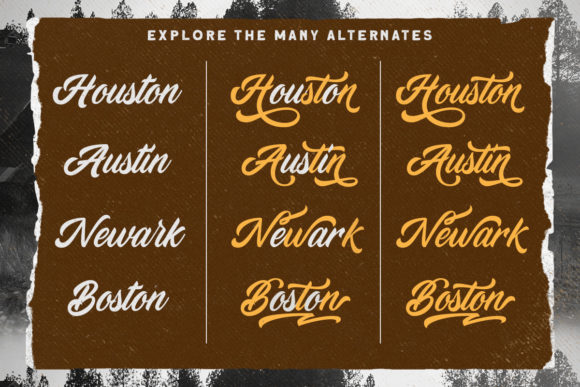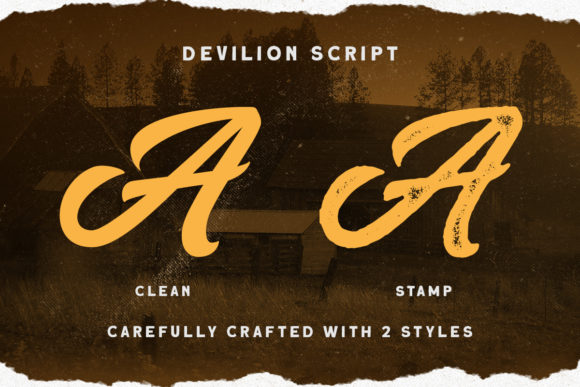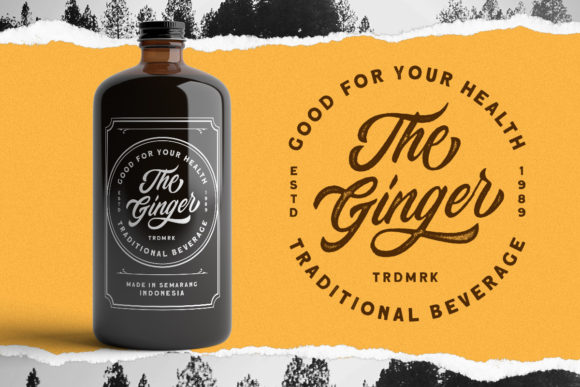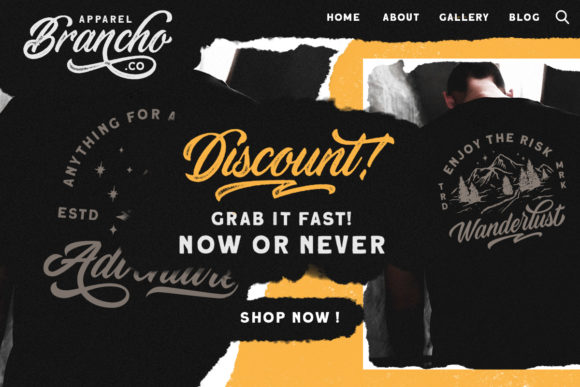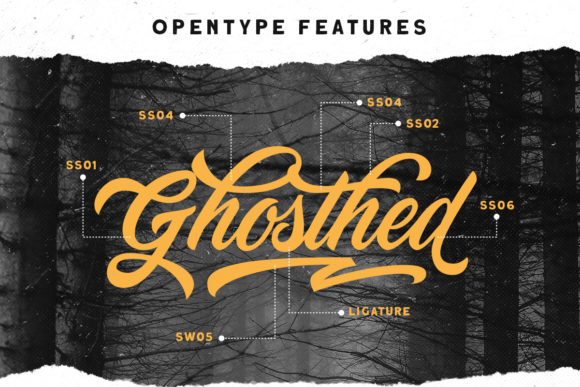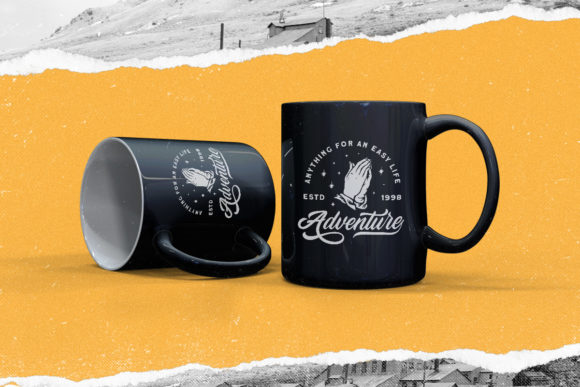
Introducing Devilion Font: A Timeless Script with a Bold Vision
Devilion is a classic script font that exudes elegance and sophistication, making it a perfect choice for designers and crafters looking to add a touch of refinement to their projects. With its bold vision and timeless charm, Devilion has become a popular choice among creative professionals. In this article, we’ll delve into the world of Devilion font, exploring its features, uses, and benefits.
The Story Behind Devilion
Devilion font is a carefully crafted script typeface that draws inspiration from traditional calligraphy. Its bold and fluid strokes are reminiscent of classic scripts, while its modern twists make it a versatile choice for a wide range of applications. Whether you’re designing a logo, creating a brand identity, or crafting a beautiful wedding invitation, Devilion is the perfect choice.
Key Features of Devilion Font
- Classic Script Style: Devilion boasts a classic script style with flowing connections and elegant strokes.
- Bold Vision: The font’s bold vision makes it perfect for headlines, titles, and emphasis.
- Versatile: Devilion is suitable for a wide range of applications, from branding and advertising to packaging and stationery.
- Easy to Read: Despite its bold style, Devilion remains easy to read, making it perfect for body text and captions.
Uses of Devilion Font
Devilion font can be used in a variety of creative projects, including:
- Branding and Identity: Create a lasting impression with Devilion’s bold and elegant script style.
- Wedding and Event Stationery: Add a touch of sophistication to your wedding invitations, menus, and programs.
- Packaging and Product Design: Make your products stand out with Devilion’s unique and eye-catching style.
- Advertising and Marketing: Use Devilion to create bold and attention-grabbing headlines and titles.
Benefits of Using Devilion Font
By choosing Devilion font for your creative projects, you’ll enjoy a range of benefits, including:
- Unique and Memorable: Devilion’s bold vision and classic script style make it a unique and memorable choice.
- Versatile and Adaptable: The font’s versatility makes it suitable for a wide range of applications and industries.
- High-Quality: Devilion is a high-quality font that will elevate your designs and add a touch of professionalism.
Tips for Using Devilion Font
To get the most out of Devilion font, follow these tips:
- Use it Boldly: Devilion’s bold vision makes it perfect for headlines and titles.
- Experiment with Colors: Try pairing Devilion with different colors to create a unique and eye-catching effect.
- Mix and Match: Combine Devilion with other fonts to create a visually appealing contrast.
Devilion font is a timeless script typeface that offers a bold vision and classic charm. With its versatility, ease of use, and high-quality design, Devilion is a perfect choice for designers and crafters looking to add a touch of sophistication to their projects. Whether you’re creating a brand identity, designing a wedding invitation, or crafting a beautiful piece of art, Devilion is the perfect choice.